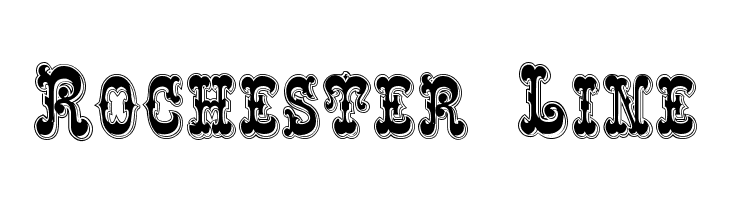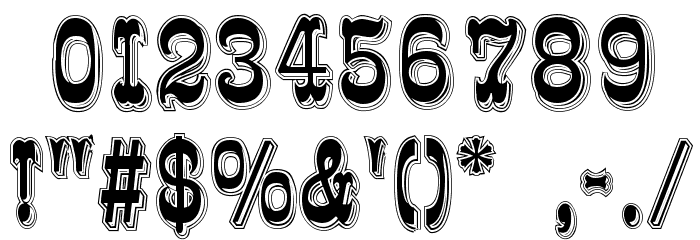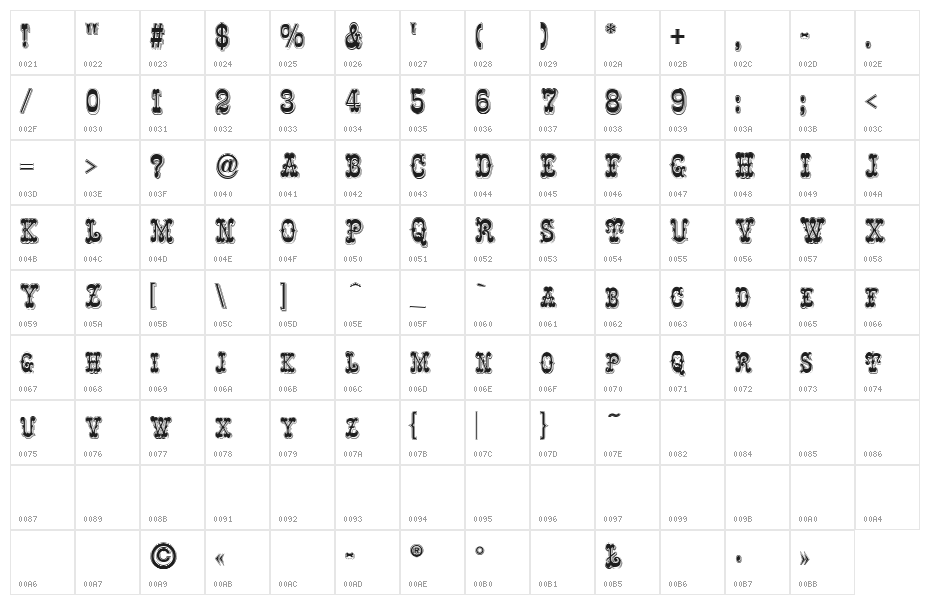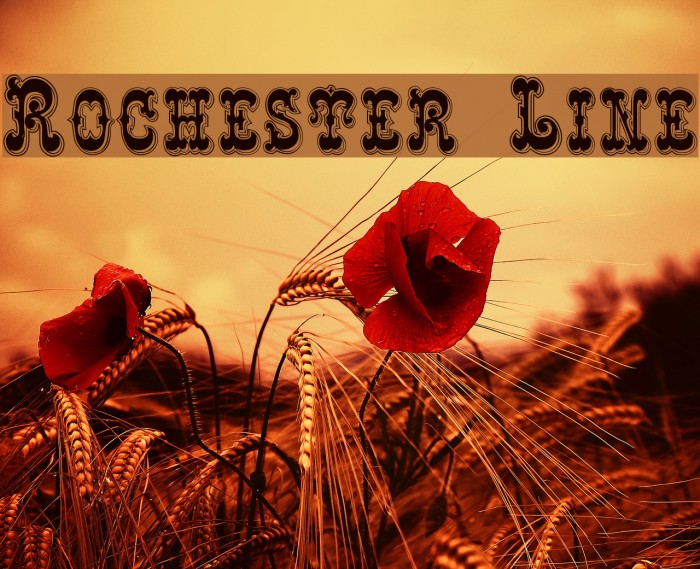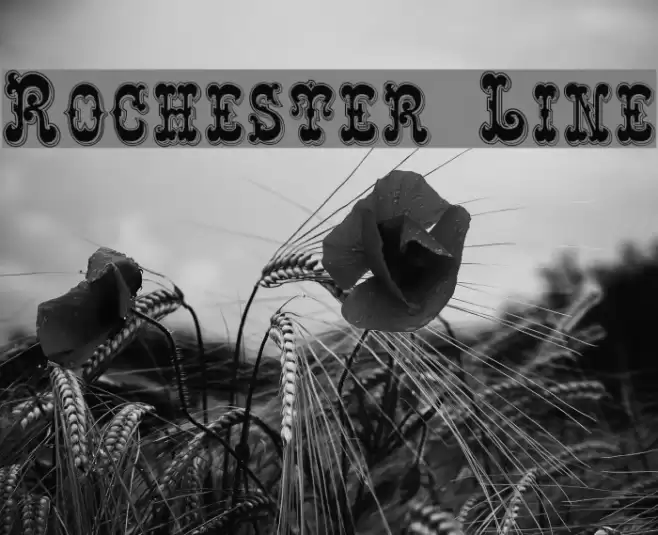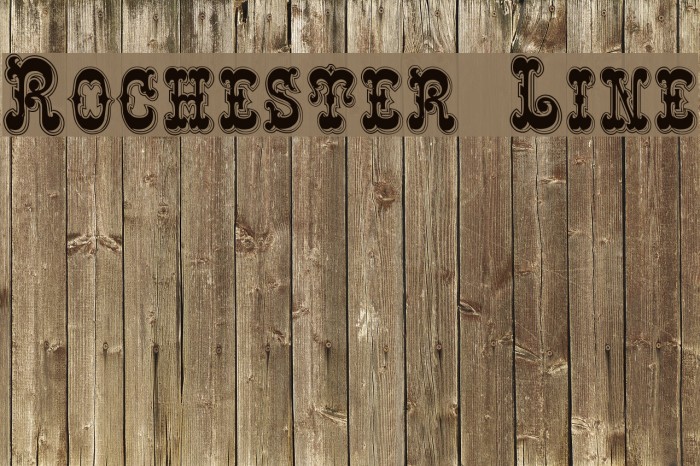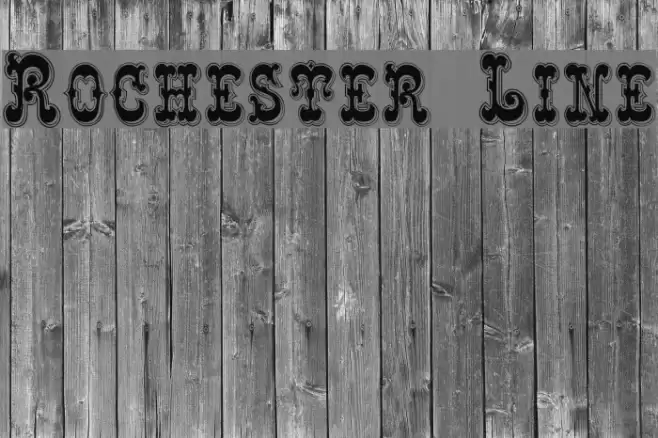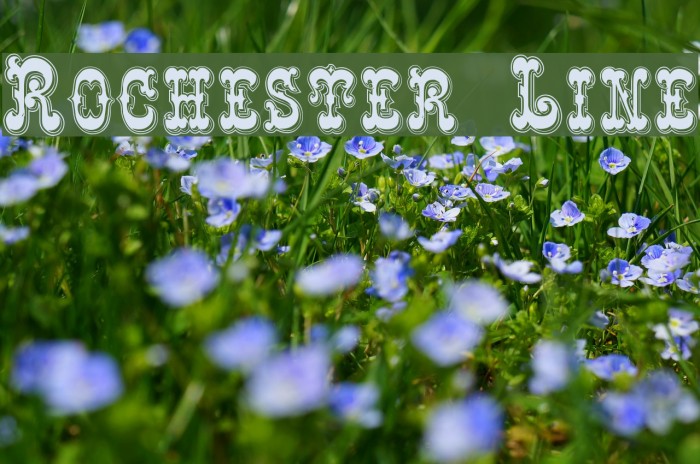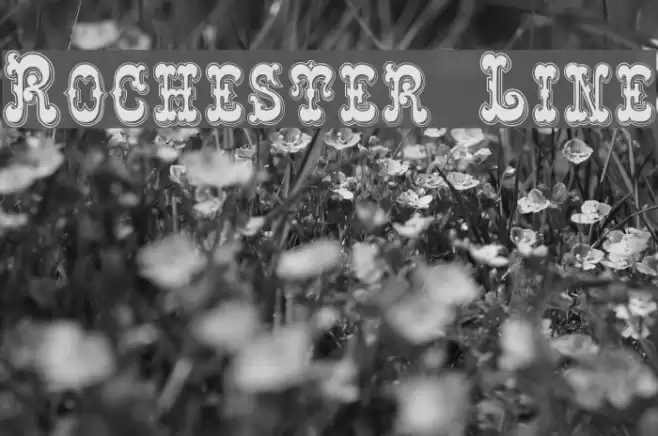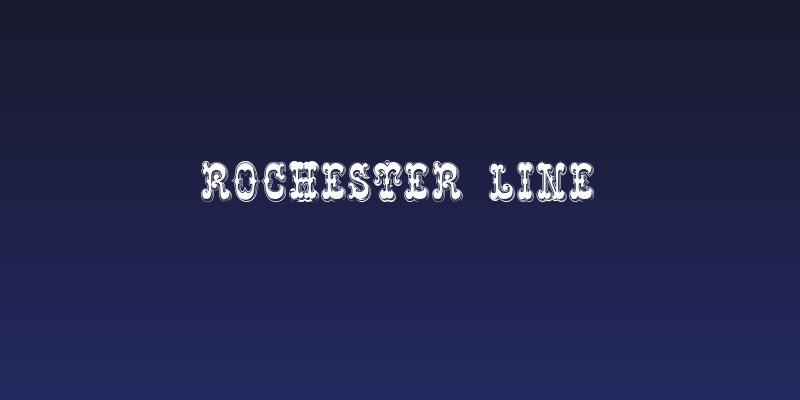
Rochester Line Font
Rochester Line Description
This font is a decorative and bold typeface with an intricate design that features ornate, swirling elements within each character. The letters are outlined with a thick, black border, enhancing their visibility and making them stand out. The interior of each character is filled with detailed line work, creating a sense of depth and texture. This font is highly stylized, with a vintage flair that evokes a sense of nostalgia and elegance. Its unique design makes it suitable for eye-catching displays and creative projects where a touch of sophistication and artistry is desired. The numbers and special characters follow the same ornate style, ensuring consistency across all elements.
| Use Case | Headlines, Logos, Decorative text |
| Proposed Projects | Ideal for vintage-themed posters, artistic invitations, branding for luxury products, and decorative signage. |